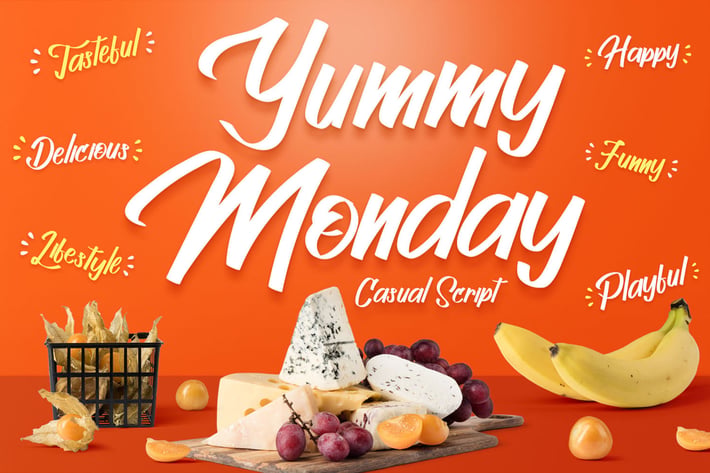
Yummy Monday - Playful Handwritten Font
Yummy Monday is a quirky and playful handwritten font. This font will easily add a fun touch to any craft!
Yummy Monday would be perfect for logos & branding, photography, watermark, social media posts, advertisements, invitation, product designs, label, stationery, wedding designs, product packaging, special events or anything that need handwriting taste.